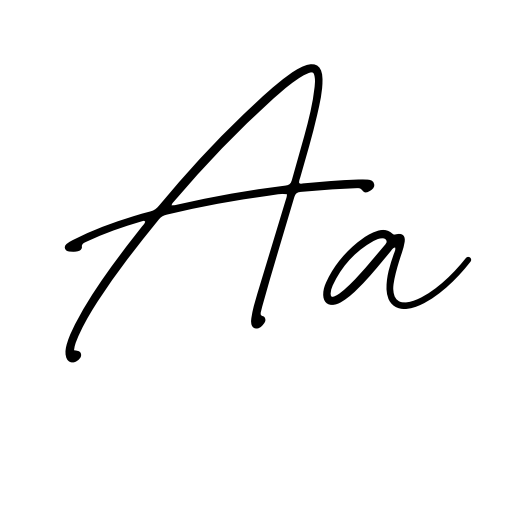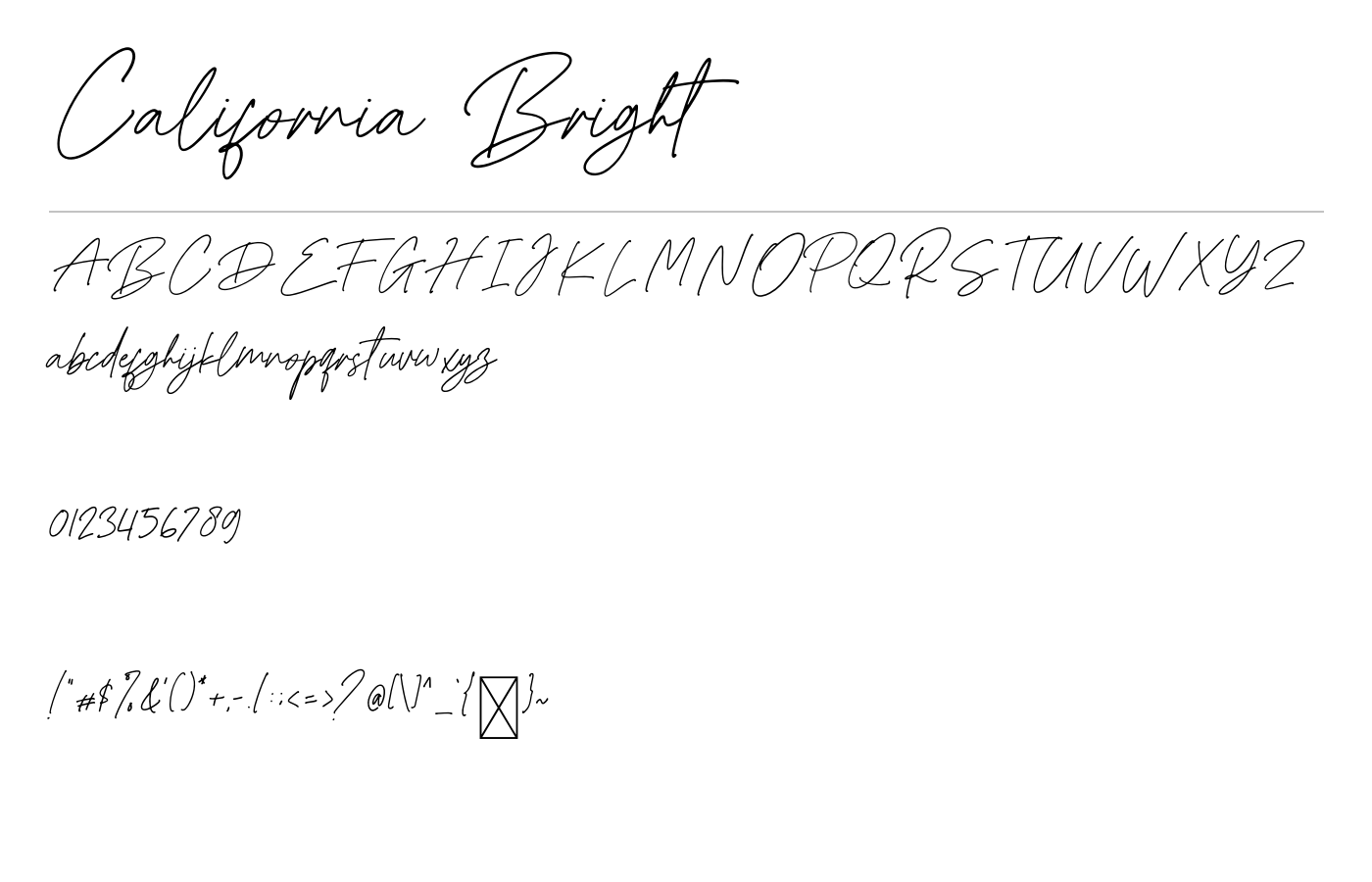
California Bright is a delicate and elegant handwritten script font with thin, flowing strokes that convey a natural, personal touch. Its slender, slightly irregular letterforms create a relaxed yet refined feel, making it perfect for branding, invitations, and projects that seek a stylish, intimate, and approachable aesthetic. This font works especially well in designs aiming for a modern, artistic, and friendly vibe.
California Bright Font
About California Bright Font
| Font family | California Bright Font |
| Designer | Agung Rohmat |